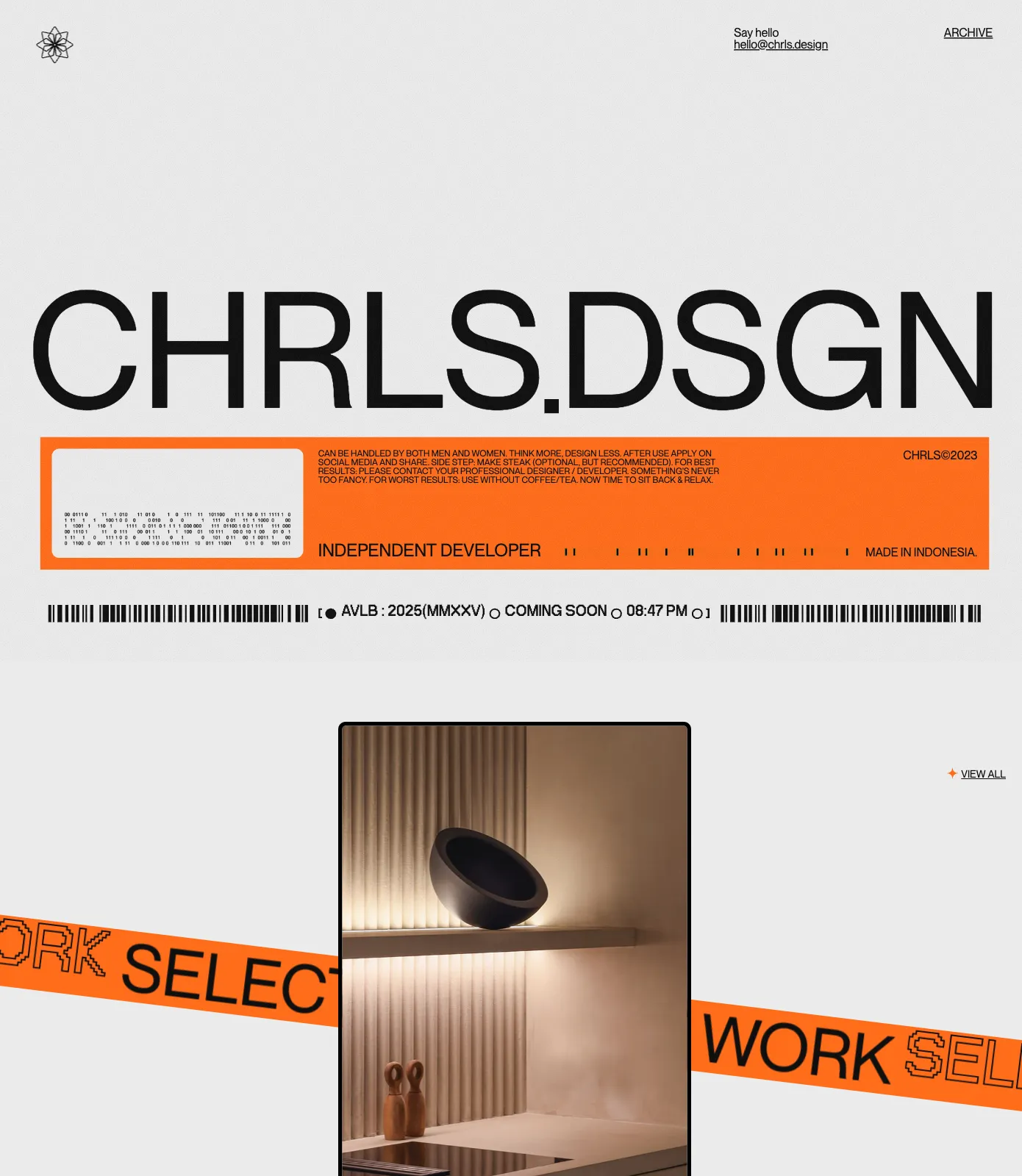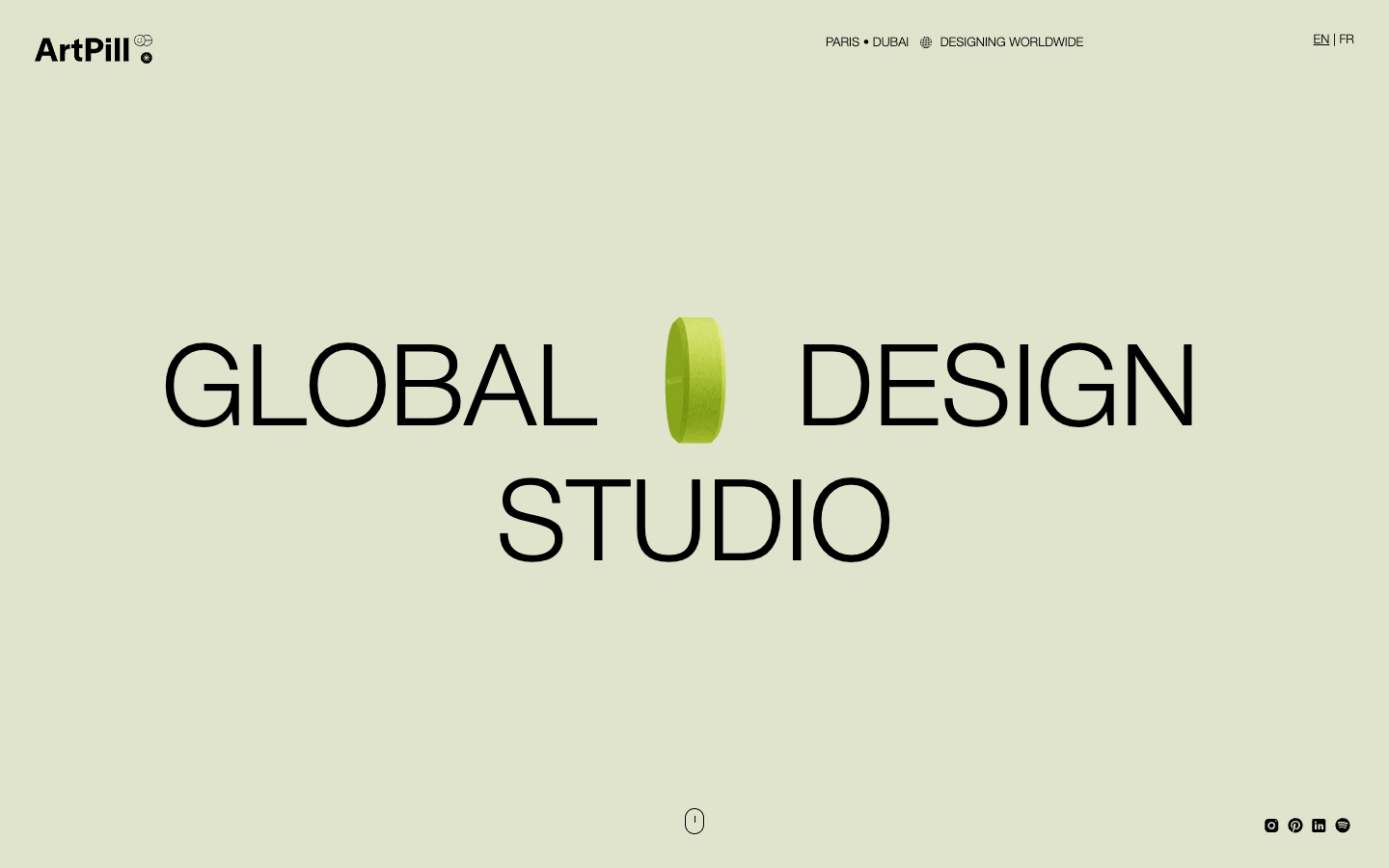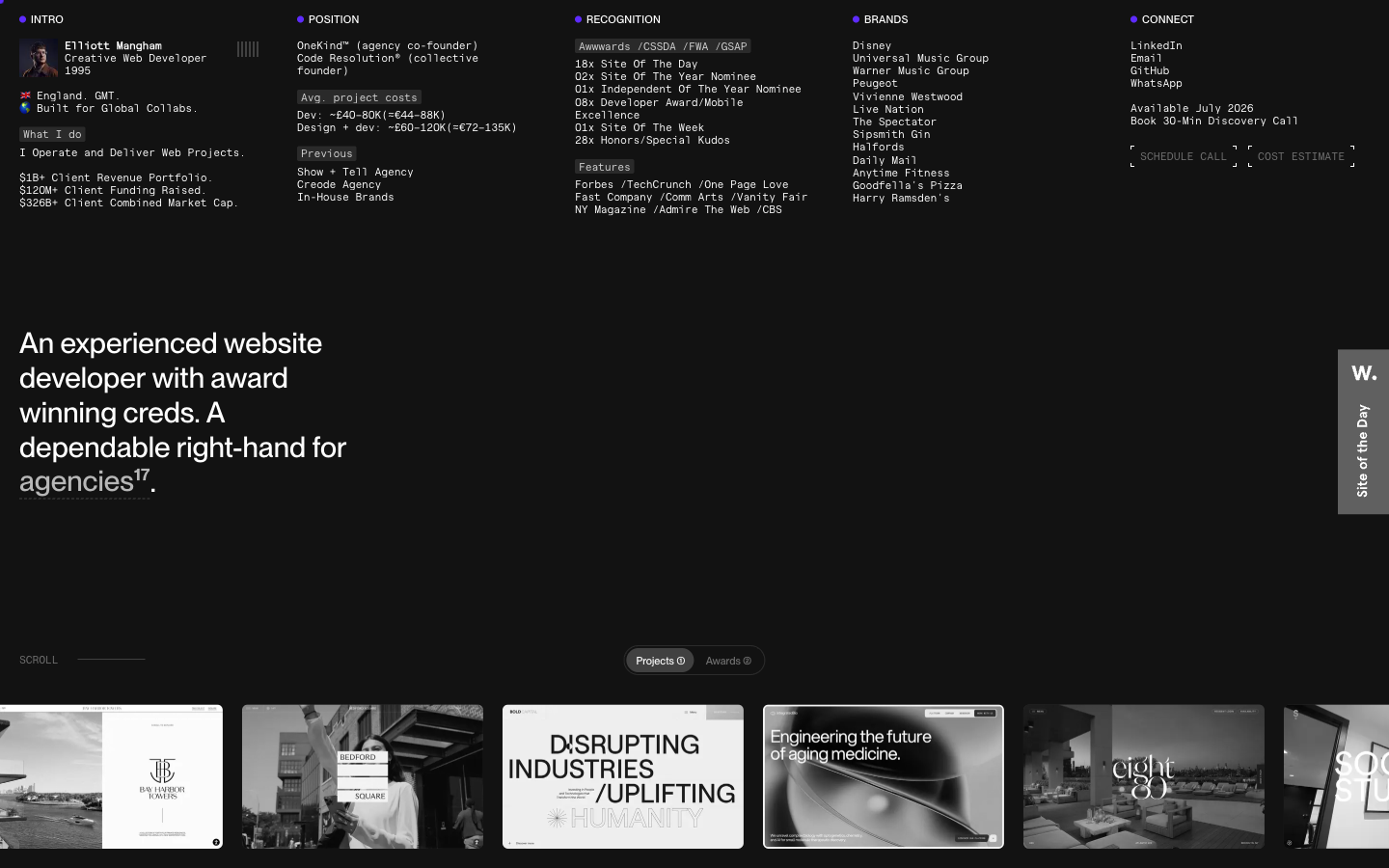
The Neue Montreal font on real websites
25 websites set in Neue Montreal, with their font pairings and stack.
Neue Montreal is a commercial neo-grotesque sans-serif by Pangram Pangram. A neo-grotesque from Pangram and one of the defining faces of studio and portfolio sites.
- Sans-serif, neo-grotesque sans-serif
- Pangram Pangram
25 websites in the save.design library use Neue Montreal. It shows up most on portfolio and agency sites. It's most often paired with Supply Mono, Mondwest and Neue Montreal Mono. Sites using Neue Montreal are most often built with React (40%).
Recent examples include guillaumecolombel.fr, perappelgren.de, wiemer.store and stephaniebruce.co. All 25 websites using Neue Montreal are on this page, with the rest of their fonts and their tech stack.
On real sites, Neue Montreal is most often set alongside Supply Mono (8% of them), Mondwest (4% of them) and Neue Montreal Mono (4% of them).